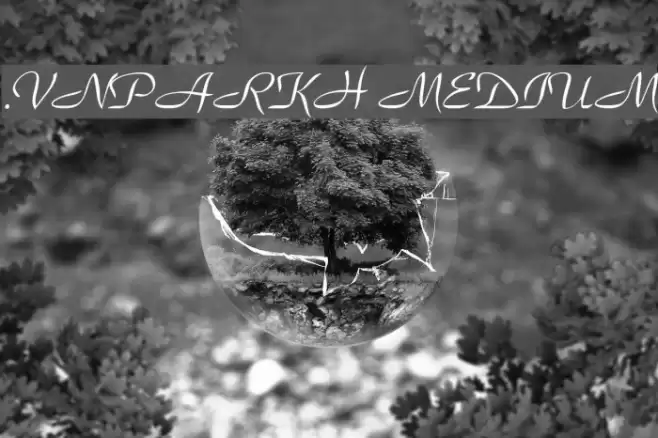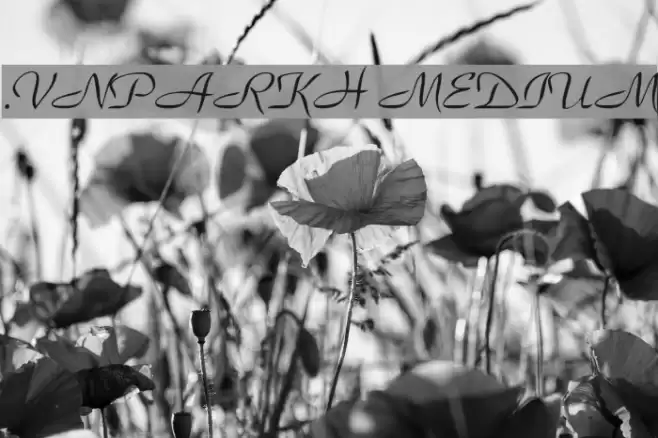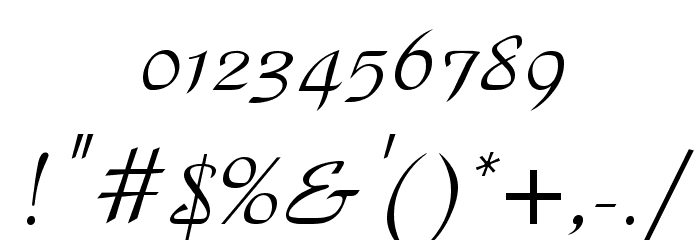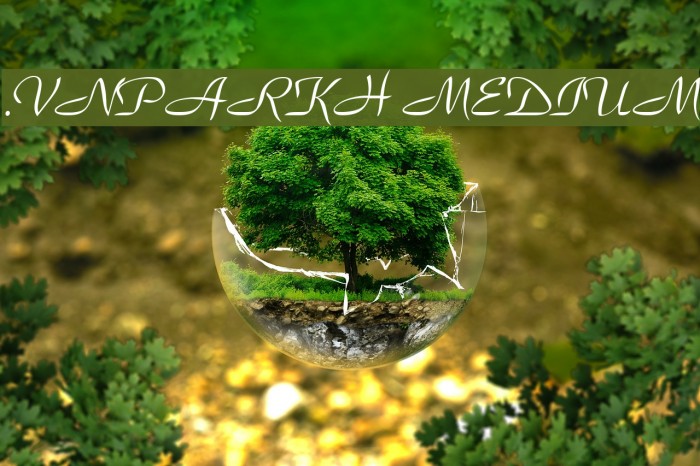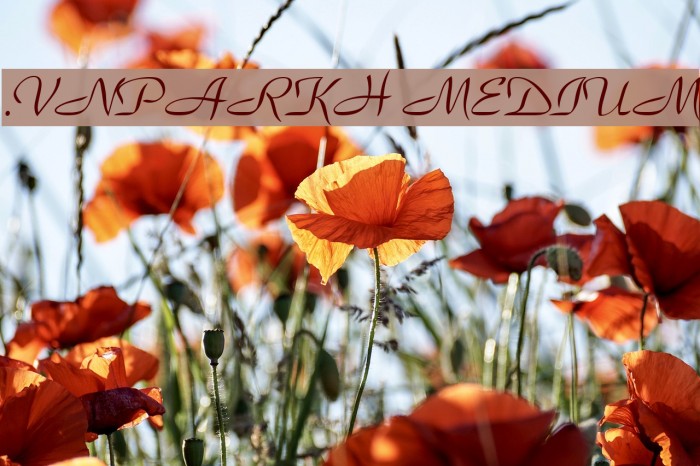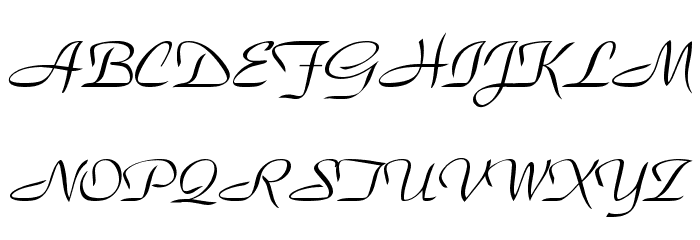
.VnParkH Medium Font
.VnParkH Medium Description
This font exhibits a sophisticated and elegant script style, characterized by its flowing, cursive letterforms. The uppercase letters are particularly ornate, with sweeping curves and flourishes that give a sense of movement and grace. The lowercase letters maintain a consistent style, complementing the uppercase with their own subtle embellishments. The numerals are designed to match the overall aesthetic, featuring similar curves and angles. Special characters are included, maintaining the font's cohesive style. This font is ideal for projects that require a touch of elegance and sophistication.
A sophisticated script font with elegant, flowing cursive letterforms from Uncategorized fonts.
- Proposed Projects: Ideal for wedding invitations, luxury branding, elegant signage, and high-end product packaging.
- Overall Style: Elegant, Sophisticated
- Use Case: Logos, Invitations, Branding